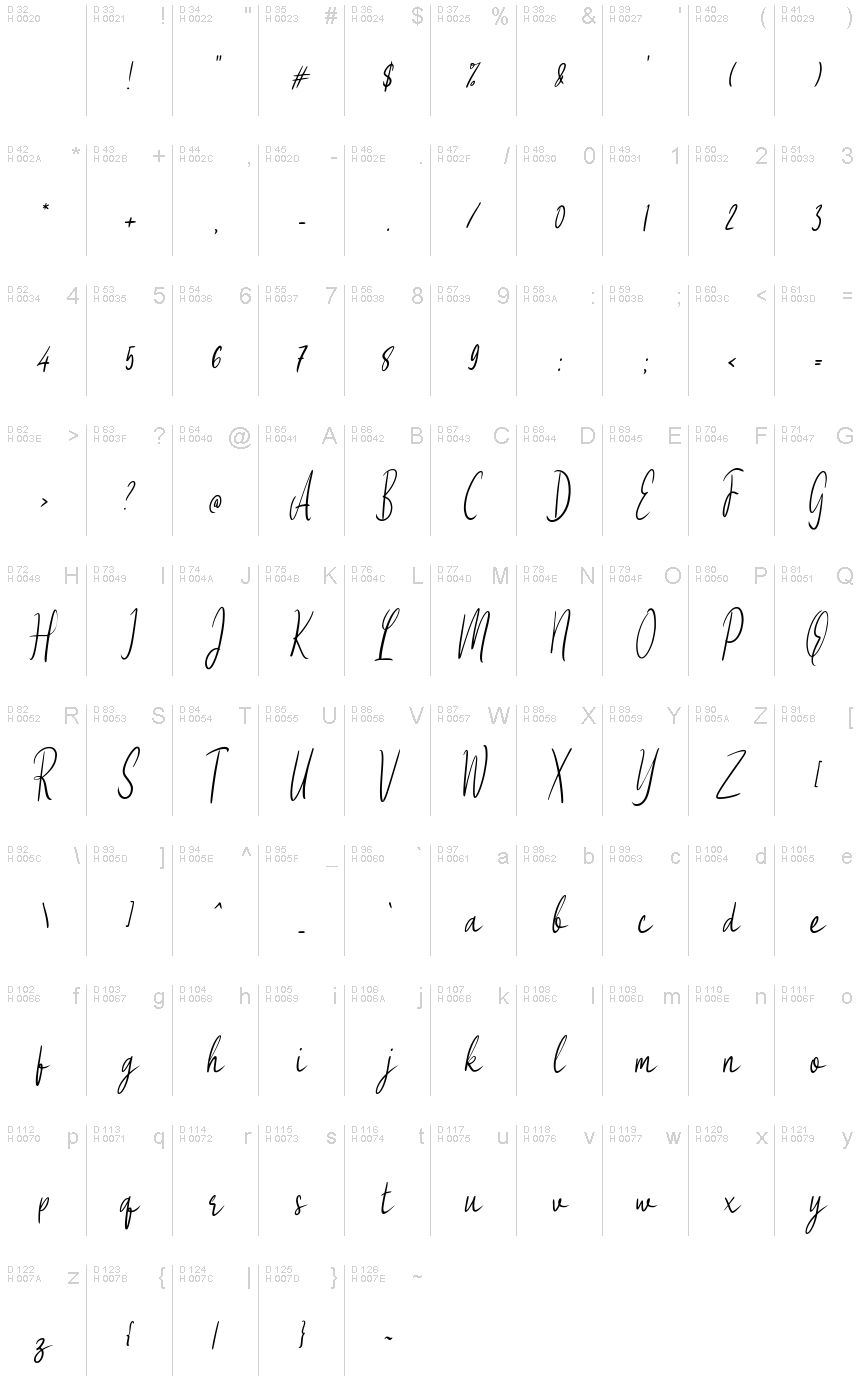
Genangan Script
Genangan Script font by designer wep is a captivating handwritten typeface. With its light weight and condensed style, this free font exudes elegance and fluidity, making it ideal for projects that demand a personal touch. Perfect for invitations, branding, or artistic designs, Genangan Script's flowing lines offer a unique aesthetic appeal that's both sophisticated and approachable.